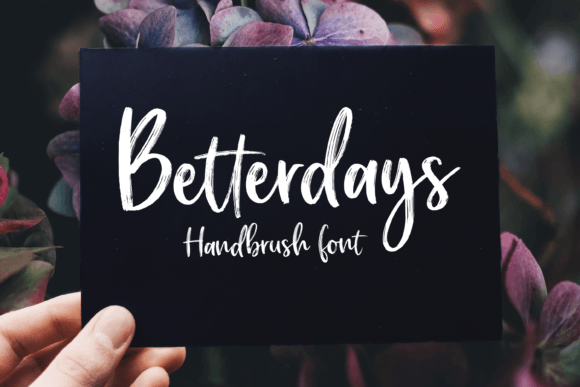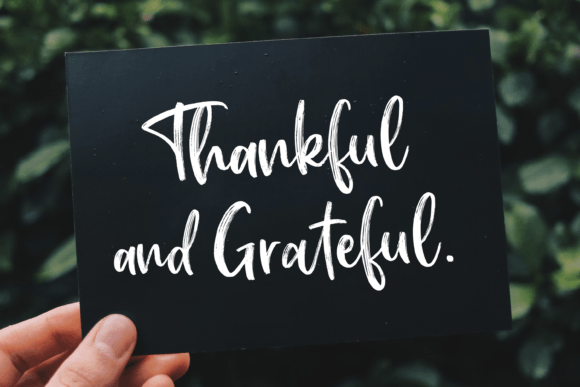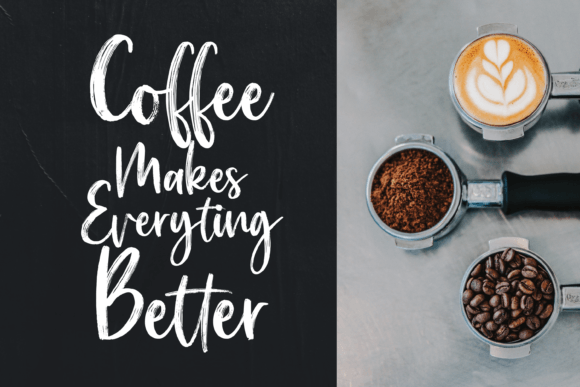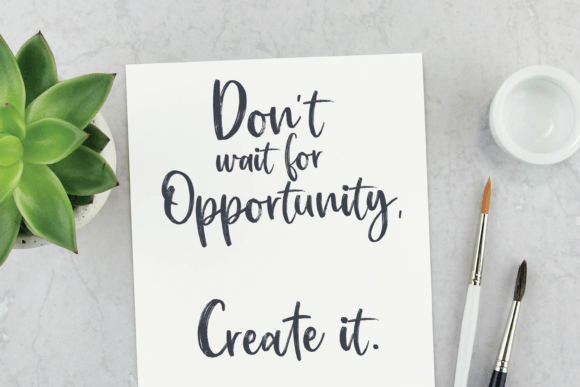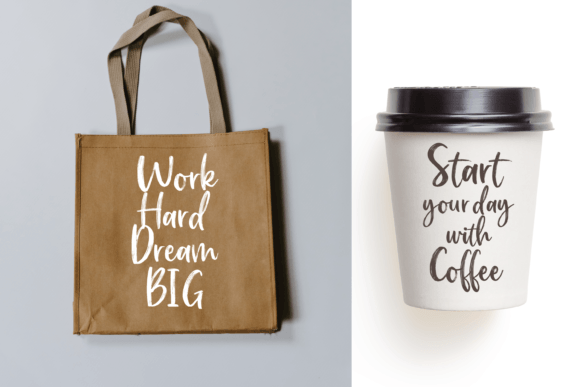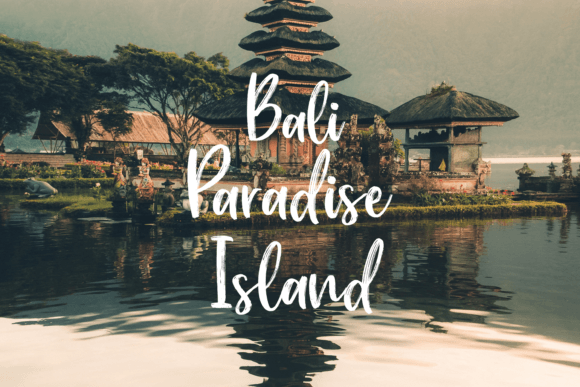
Betterdays Font
About Betterdays Font
Betterdays is a delicate, elegant, and flowing handwritten font. It has beautiful and well-balanced characters and as a result, it matches a wide pool of designs.